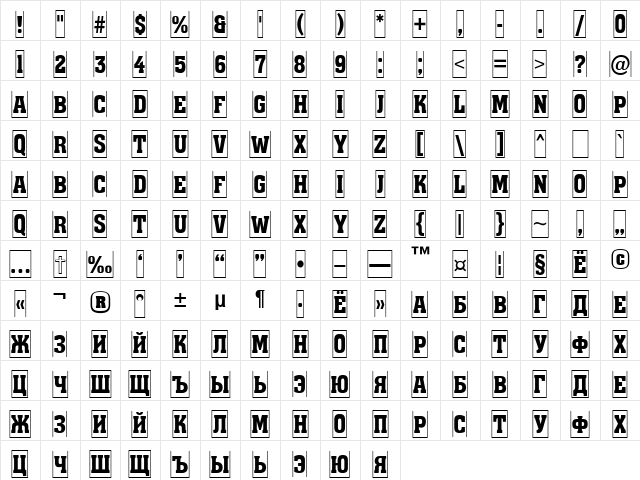
Complete a_AssuanTitulCmFr Medium glyph index. Displaying only characters natively supported by a_AssuanTitulCmFr Medium font.
a_AssuanTitulCmFr is a composed and adaptable typeface that performs quietly and consistently across a wide range of design contexts.